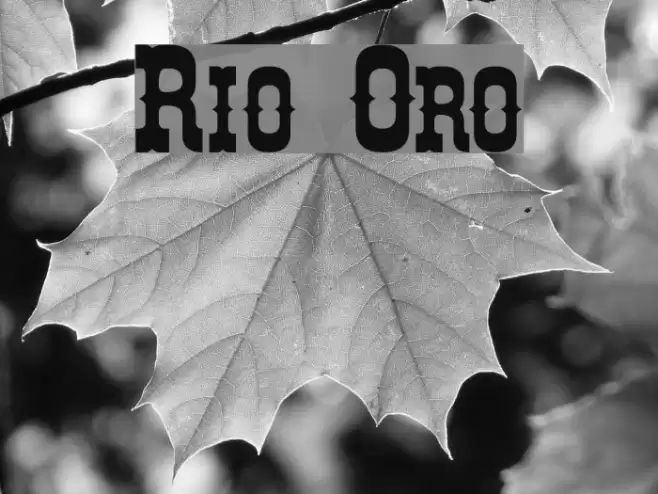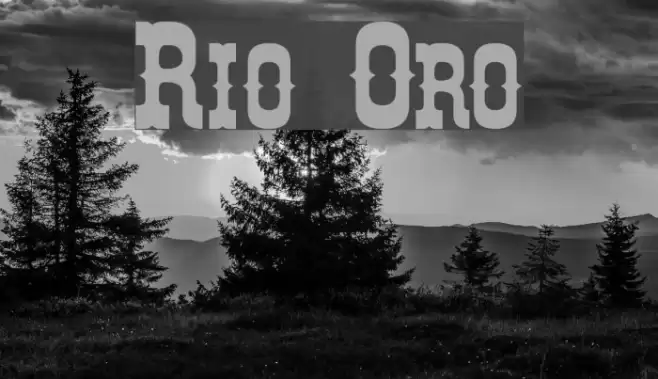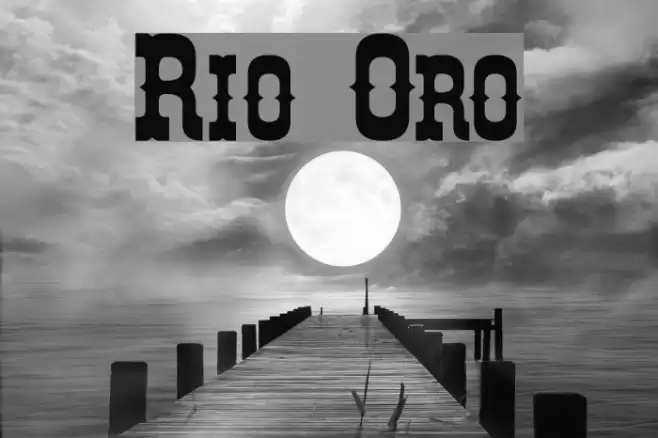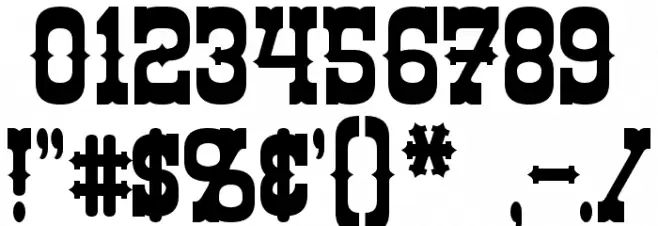
Rio Oro Font
Rio Oro Description
This font features a bold and robust design with strong, slab-like serifs that give it a commanding presence. The characters are uniformly thick, providing a consistent and solid appearance across all letters and numbers. The uppercase and lowercase letters maintain a cohesive style, with the uppercase being particularly striking due to its blocky and authoritative form. The numbers are equally bold, ensuring they stand out in any context. Special characters are designed with the same attention to detail, maintaining the font's overall aesthetic. The font's design is reminiscent of vintage Western typography, making it ideal for projects that require a touch of ruggedness and strength.
A bold, slab serif font with a vintage Western aesthetic from Uncategorized fonts.
- Proposed Projects: Ideal for posters, signage, branding, and any project requiring a strong, vintage look.
- Overall Style: Vintage